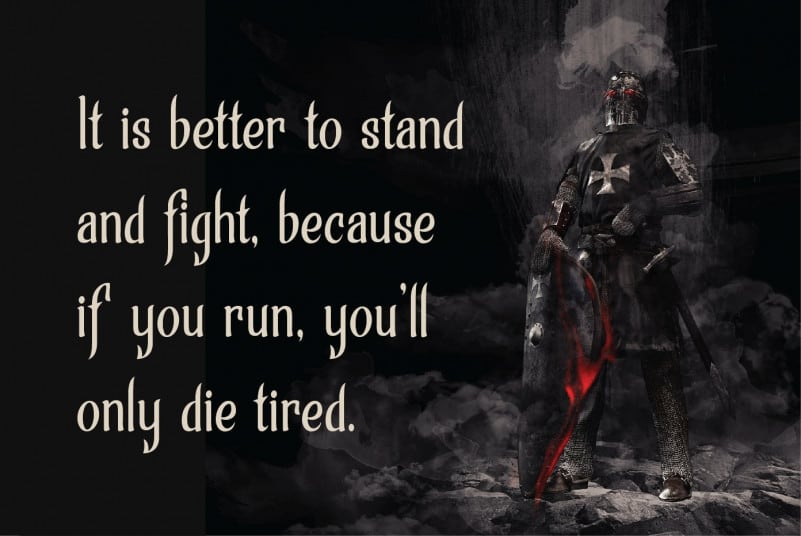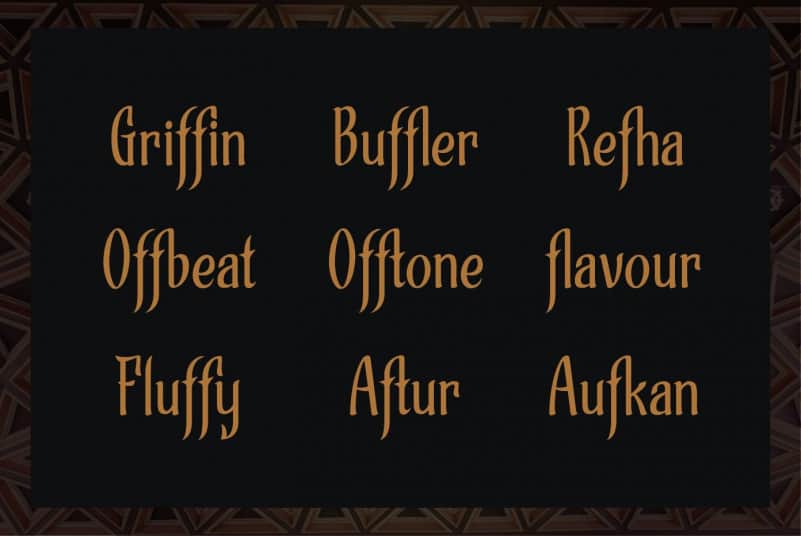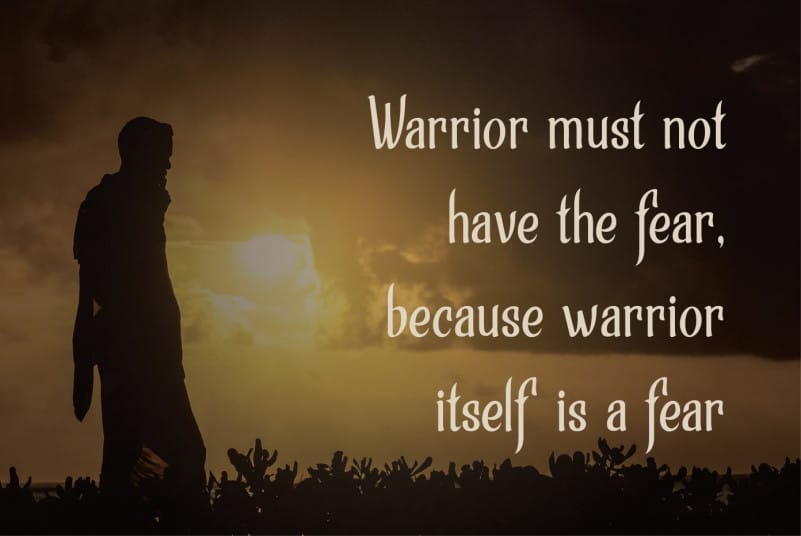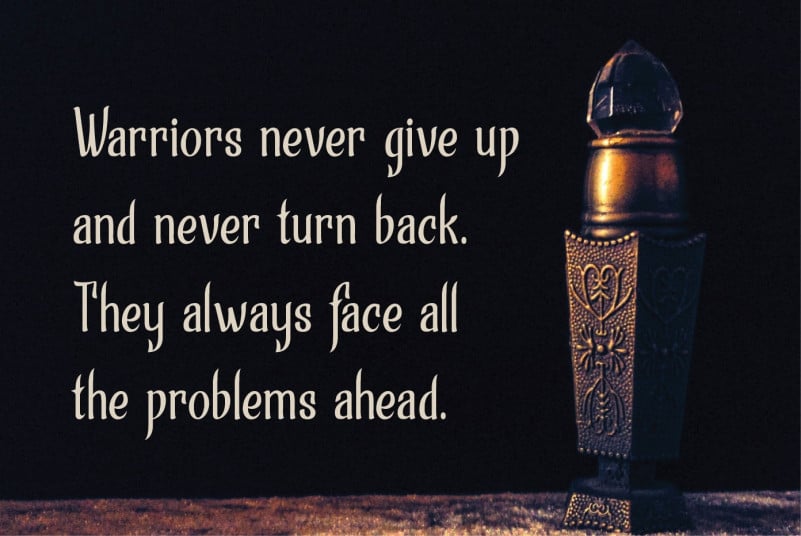
Strandall Display Font
Strandall Display Font is sharp display typeface inspired from warrior themes to support your brand/project.
Strandall Display Font is perfect for projects such as logos & branding, headlines, posters, signage, advertisements, printed quotes, product packaging, product designs, label, photography, watermark, special events or anything.